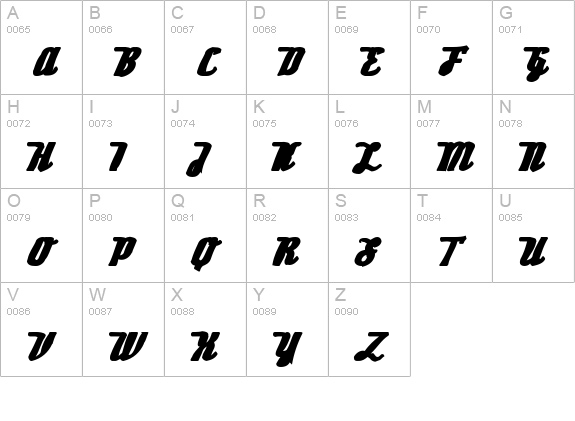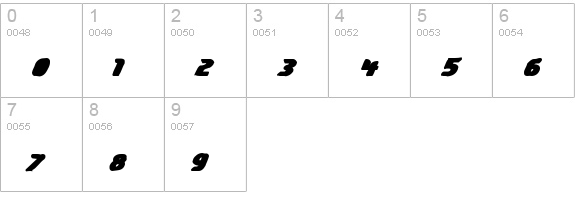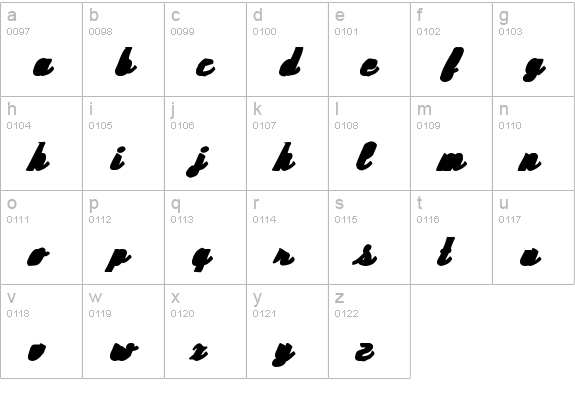
Deftone Stylus Ink Font Details
Deftone Stylus Ink is a unique and artistic font that exudes a sense of modernity and creativity. This font features edgy and bold strokes that give it a stylish and contemporary look. The intricate details and sharp lines of Deftone Stylus Ink make it perfect for adding a touch of sophistication to your designs. What makes Deftone Stylus Ink even more appealing is that it is free to download at FontsMarket.com. This means that you can easily access this stunning font and use it in your projects without any cost. Whether you are working on graphic design projects, branding materials, or creative artworks, Deftone Stylus Ink is sure to make a statement and leave a lasting impression. Download Deftone Stylus Ink for free today and elevate your designs with its bold and stylish aesthetic.